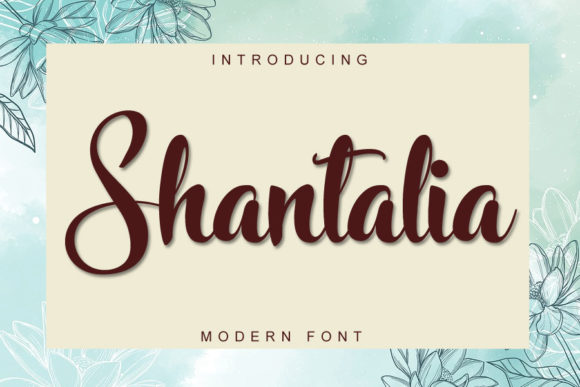
Enter the realm of Shantalia, a font family that enchants your designs with opulence and charisma. Step into a world where script and artistry intertwine, and your creative visions are transformed into breathtaking realities. With Shantalia, transcend the boundaries of ordinary typography and embrace a symphony of elegance and grace.
Adorn your business cards with Shantalia's refined strokes, leaving an indelible impression on clients and colleagues alike. Elevate your YouTube banners to new heights of visual artistry, captivating audiences with every frame. Create cover logo mockups that exude professionalism and sophistication, leaving a lasting impact on your brand's identity.
Journey into the world of wedding invitations, where Shantalia's delicate curves and flourishes add a touch of romance and elegance. Craft ID cards that radiate individuality and charm, making each card a unique expression of style. Unleash your creativity in flayers, imbuing them with Shantalia's captivating presence that demands attention.
With Shantalia, embark on a journey of boundless creativity, where every project becomes a masterpiece. Its simple yet distinctive character shines through, making it a timeless choice for discerning designers. Effortlessly access a diverse range of glyphs and ligatures, adding intricate details and depth to your designs.
Unlock the full potential of Shantalia, a font family that empowers you to craft designs that speak volumes. Experience the transformative power of Shantalia, and witness your creative vision flourish into an enchanting reality. Embrace the magic of typography and elevate your designs to new heights of brilliance.